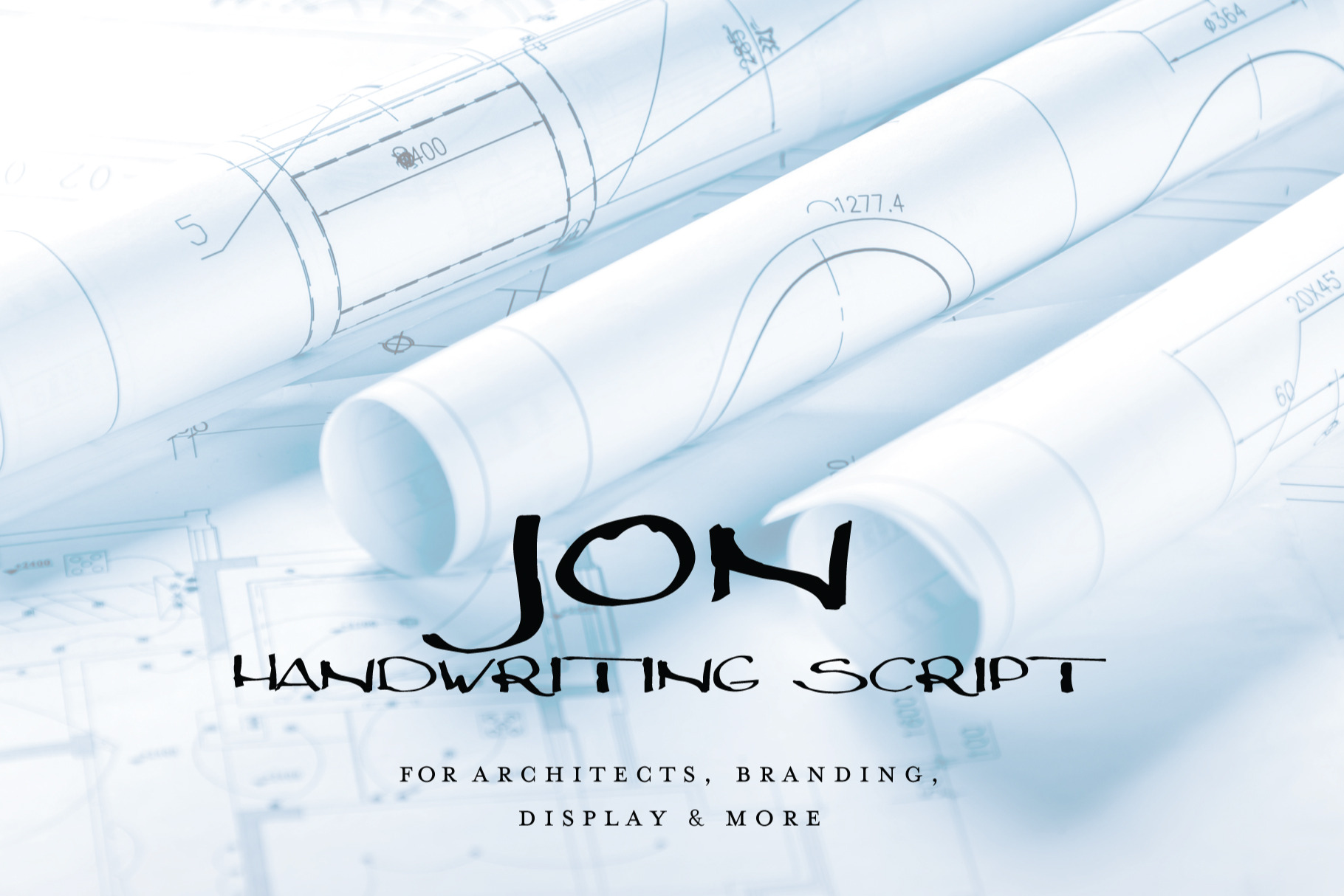
JON ARCHITECT SCRIPT FONT
Introducing JON, a new blueprint/drafting style handwritten font inspired by a Norwegian architect's lettering with a calligraphy pen. Perfect for designs that need a handwritten professional look with casual precision. Also suitable for branding, titling or other display purposes.
The font has multi language support and basic glyph characters.
- All Caps Display Typeface
- Basic Glyph Characters & Numbers